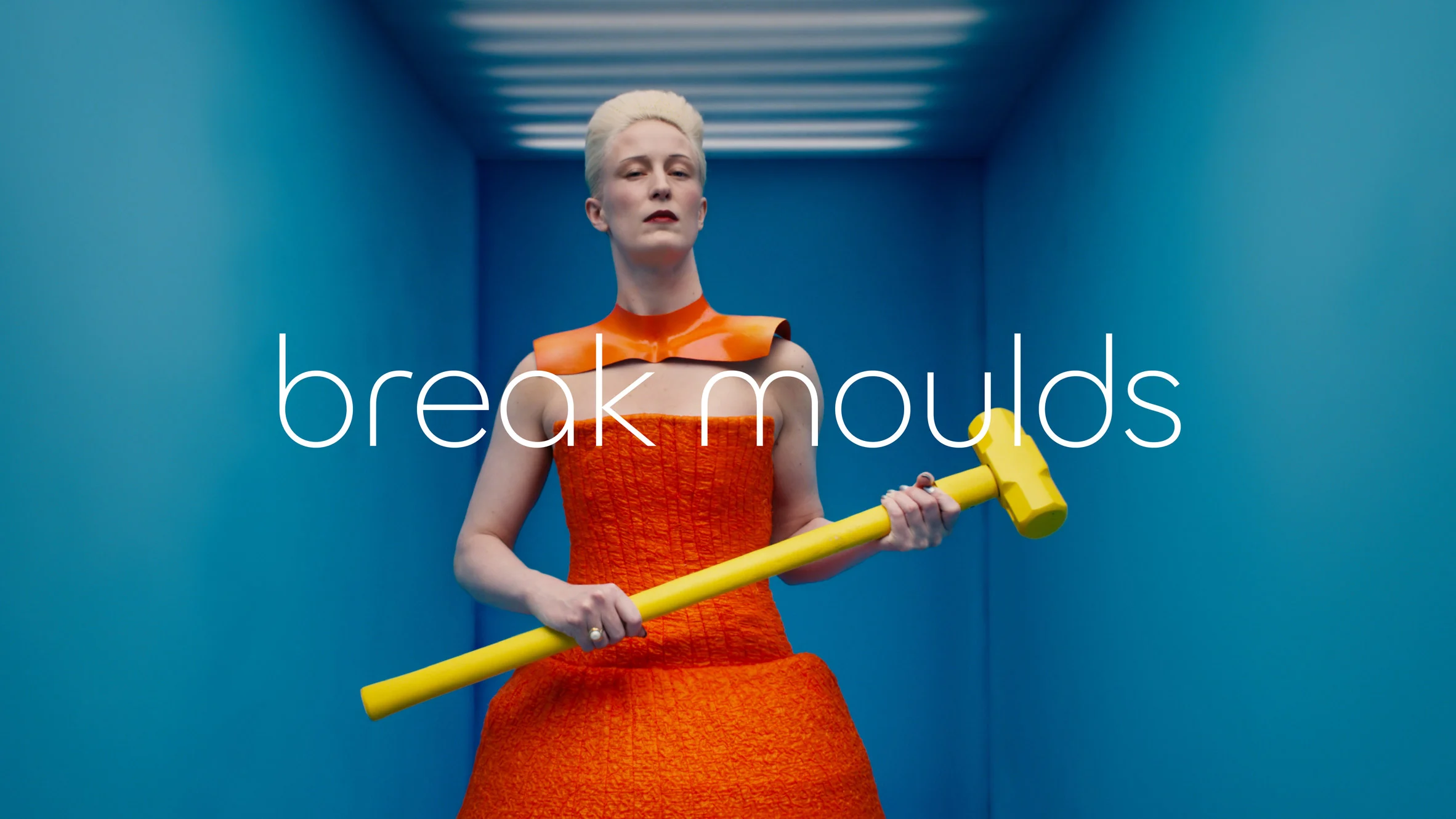
Jaguar’s new rebranding is breaking the internet apart. A brand that is (or was) a symbol of luxury, performance, and British heritage has revealed a new logo and communication strategy aimed at positioning itself in the electric vehicle (EV) market and speaking directly to a “younger” audience.
Everyone keeps wondering, “Where is the car?” But personally, we’re asking: what is going on with brands all looking the same? Why is a historic brand like Jaguar sharing visual similarities with companies like Samsung or Motorola? Why is a “trend” dictating how a brand behaves? If brands constantly chase trends, can they truly build a solid, lasting identity?
How is this rebranding helping Jaguar stand out? The new slogan is “Copy Nothing,” but to us, it feels quite the opposite.
The All-Electric Pivot and the New Logo
Jaguar’s rebranding aligns with its ambitious push to become an electric-only carmaker by 2026, reflecting broader trends in the automotive industry. In 2008, the company was acquired by Tata Motors, an Indian multinational automotive giant headquartered in Mumbai, which also owns Land Rover.
The brand is leaning heavily on its founder Sir William Lyons’ philosophy that “a Jaguar should be a copy of nothing.” This ethos is now encapsulated in the new slogan, “Copy Nothing.” On the surface, it’s a strong and inspiring message—but does the communication truly reflect it? More importantly, does the brand still feel like Jaguar?
The rebranding is clearly bold, and by this, we mean it can be considered as a risky direction. The iconic all-caps “JAGUAR” has been replaced by a geometric, minimalist, Bauhaus-inspired typeface, that plays with the upper-lower cases: JaGUar, supposedly to play with the naming pronunciation: The typeface aims to harmonize upper and lowercase letters while nodding to the brand’s posh British pronunciation—“Jag-you-are”—and conveying a sense of “modernism”, but does it? Is it still innovative to use a 1920’s inspired font?
Was the previous logo perfect? From a technical perspective, there was room for improvement, as everything in life. However, the core purpose of a rebrand is to maintain a connection to the brand’s heritage, while innovating, and connecting with the brand’s goals and main purpose. In this case, the leap from Jaguar’s previous logo—a dynamic and powerful symbol—to a subtler, more abstract design feels like a step toward something static and rather standard.
The real question is: Why? The rationale behind these changes isn’t compelling enough. The branding and aesthetic decisions driving this rebrand feel superficial and insufficiently considered. It’s as though the “why” behind the “what” wasn’t thoroughly pondered, leaving the new identity struggling to connect to Jaguar’s legacy.
Everything feels strangely familiar—if not outright derivative. The striking similarities between Jaguar’s new wordmark and Motorola’s, particularly in font and color choices, cast doubt on the originality promised by the brand’s bold slogan.
Creative Intent or Misaligned Execution?
One of the most jarring aspects of Jaguar’s rebranding is the apparent disconnect between its messaging and its visual communication. The launch video, set against a futuristic, almost lunar backdrop, feels more like an homage to sci-fi escapism than a statement about a greener planet (referring to the electric vehicle as a main product they want to launch with this rebrand). For a brand touting its commitment to sustainability, the creative choices seem detached from earthly concerns—literally.
Furthermore, the embrace of Bauhaus-inspired minimalism feels like a cliché in 2024. While Bauhaus was revolutionary in its time, its overuse in contemporary branding risks coming across as unimaginative. Jaguar’s rebranding pivots to this aesthetic to evoke modernity and timelessness, but to many, it feels like yet another “safe” design trend. The result? A brand that once roared with individuality now purrs with conformity.
“Jaguar’s transformation is defined by Exuberant Modernism, a creative philosophy that underpins all aspects of the new Jaguar brand world. It embraces bold designs, unexpected and original thinking, creating a brand character that will command attention through fearless creativity. “ – Jaguar Media
Lessons from Formula 1 and Burberry
Rebranding historical icons is no easy task, but it can be done with finesse. Burberry’s 2023 rebranding lead by Creative director Daniel Lee embraces the brand’s roots and praises tradition. Both brands managed to evolve while staying true to their core identities. Similarly, Formula 1, remained faithful to its DNA while modernizing the visual communication, with truly innovative imagery and type. F1 today feels like NASA, but that is a great coincidence.
Jaguar’s rebranding, on the other hand, seems to be walking a fine line between reinvention and alienation. While its transition to EVs is commendable and necessary, the rebranding risks alienating loyal customers who value the brand’s heritage. A sleeker logo and Bauhaus vibes might appeal to a younger, tech-savvy audience, but do they resonate with Jaguar’s historic narrative of bold creativity and craftsmanship?
I don’t want to live in a giant echo chamber, dictated by algorithms that push people and brands to follow whatever the metrics dictate.